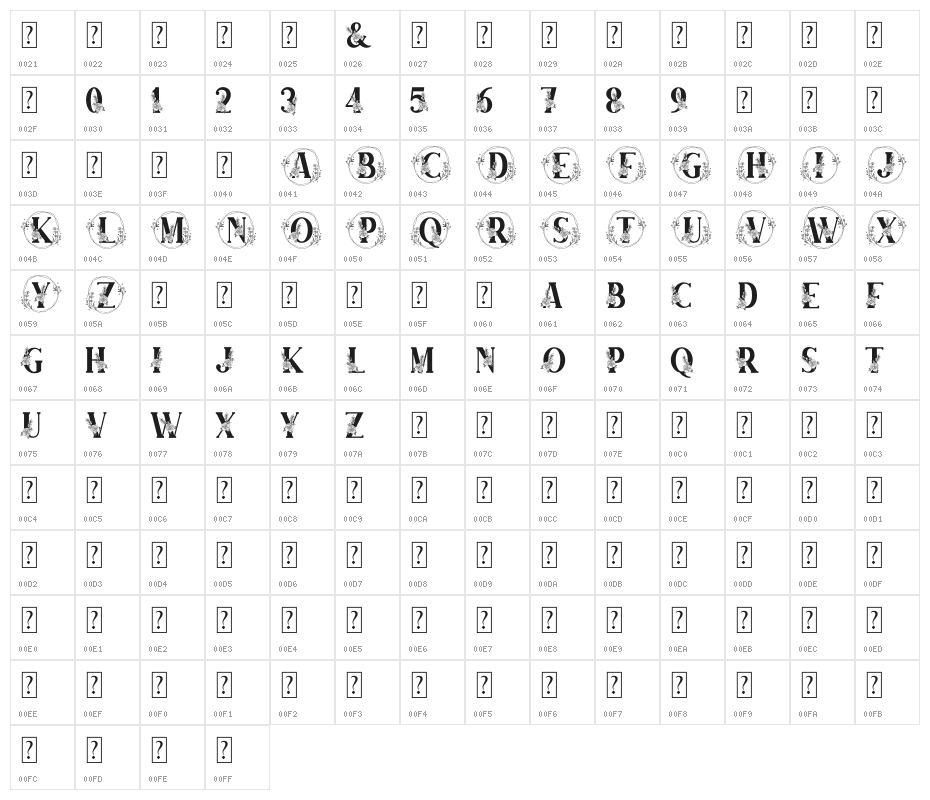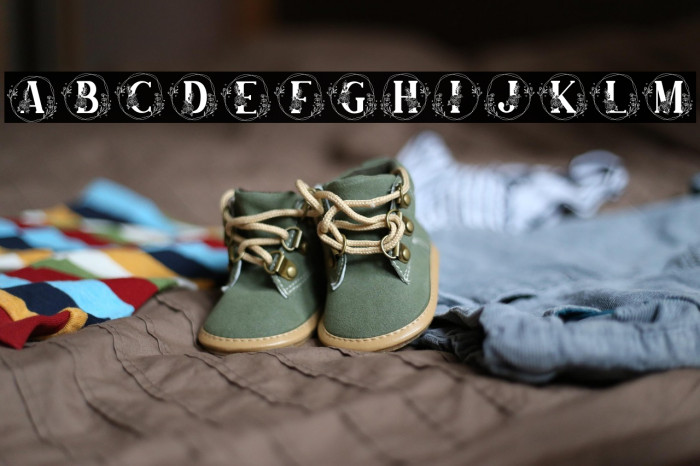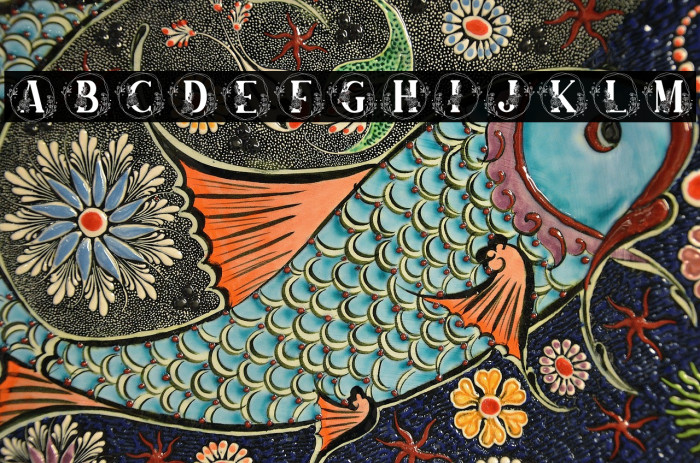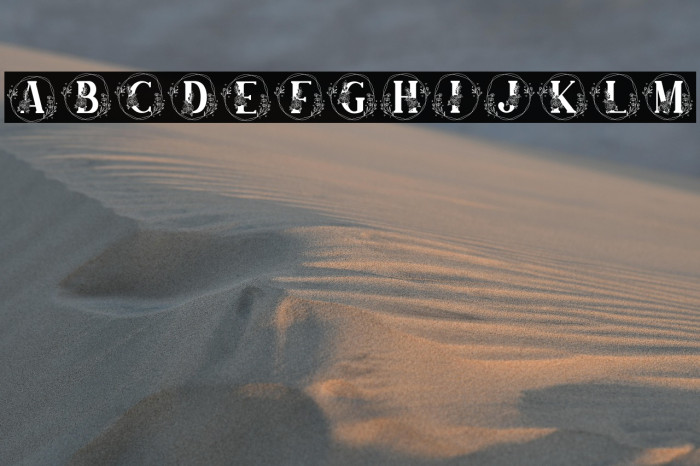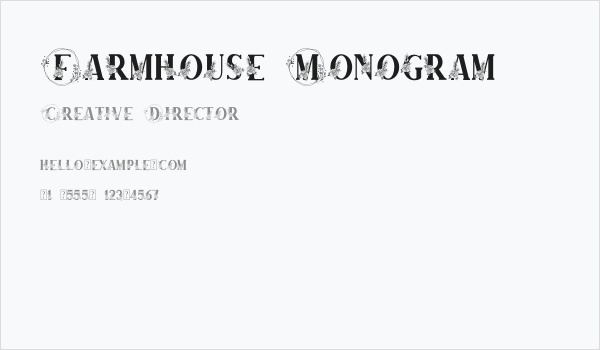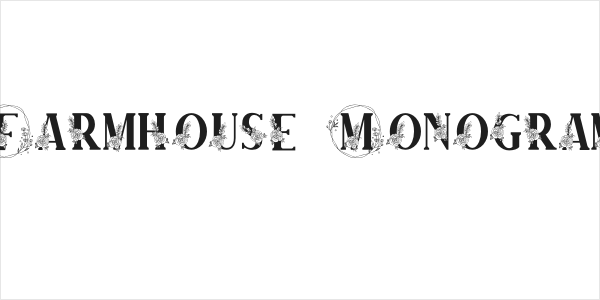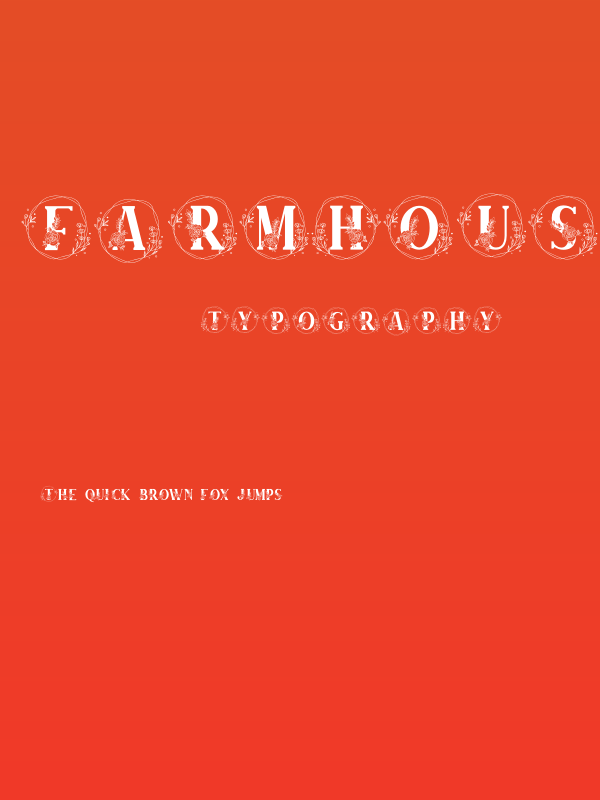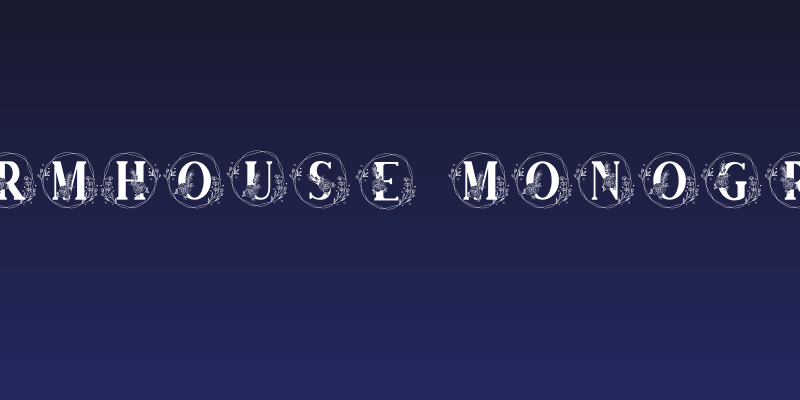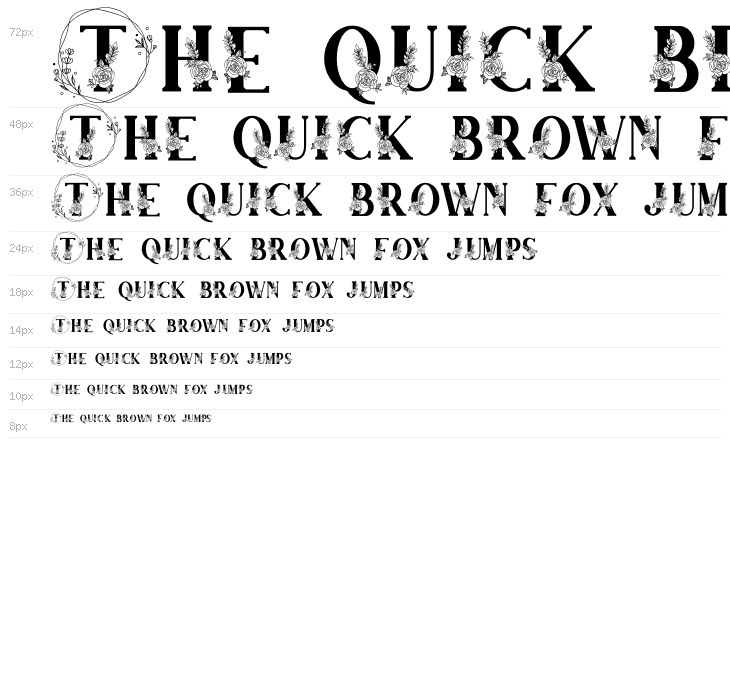
Farmhouse Monogram Font
Farmhouse Monogram Description
This font combines elegant serif lettering with intricate floral embellishments, creating a sophisticated and decorative style. Each character is adorned with detailed floral motifs, giving it a unique and artistic appearance. The uppercase letters are bold and prominent, making them ideal for monograms or decorative initials. The numbers and special characters maintain the same floral theme, ensuring consistency across all elements. The overall design is both classic and ornate, suitable for projects that require a touch of elegance and creativity.
| Proposed Projects | Ideal for wedding invitations, personalized stationery, monogram designs, and decorative signage. |